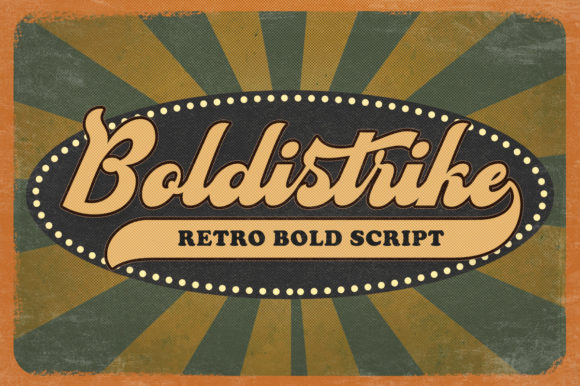
**Boldstrike: The Boldest and Most Beautiful Happy Birthday Font**
Are you tired of the same old, boring fonts for your Happy Birthday designs? Do you want a font that will make your projects stand out from the crowd? Look no further than Boldstrike, the gorgeous and bold handwritten font that is perfect for adding a touch of retro nostalgia to your work.
Boldstrike is a strong and confident font, perfect for headlines and logotype projects. It can also add a touch of whimsy and fun to your designs, making it a great choice for invitations, greeting cards, and more. And because it's a handwritten font, it has a personal and charming feel that will make your projects feel extra special.
**Here are just a few of the reasons why you'll love using Boldstrike:**
* It's a gorgeous and bold handwritten font that will make your projects stand out from the crowd.
* It's perfect for adding a touch of retro nostalgia to your designs.
* It's strong and confident, perfect for headlines and logotype projects.
* It can also add a touch of whimsy and fun to your designs.
* It's perfect for invitations, greeting cards, and more.
* It's a handwritten font that has a personal and charming feel.